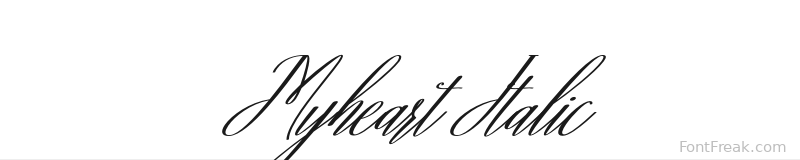
Myheart Italic
About Myheart Italic
Myheart Italic is a beautifully crafted script typeface designed by Kong Font, released in 2021 as freeware. This font embodies a graceful, handwritten style that captures the essence of fluidity and elegance. The visual characteristics of Myheart Italic include a slender stroke weight with moderate contrast, giving it a delicate appearance while ensuring readability. The flowing curves and varied angles of the letters create a dynamic feel, making it a captivating choice for a variety of design projects.
One of the standout features of Myheart Italic is its versatility in application. It is particularly well-suited for wedding invitations, where its romantic and whimsical flair can add a personal touch. Additionally, this font works beautifully on greeting cards, helping to convey heartfelt messages with an artistic flair. For restaurant menus, Myheart Italic can enhance the overall dining experience by infusing an element of sophistication. It is also ideal for branding projects, especially for artisanal businesses looking to convey a handcrafted aesthetic. Content creators and graphic designers will find this typeface an excellent choice for social media graphics, where attention-grabbing visuals are essential.